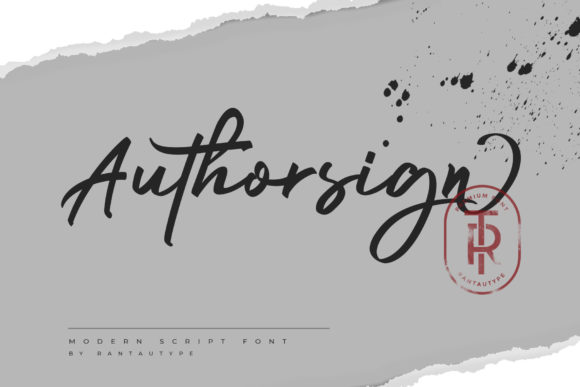
The Elegant Authorsign Font: A Designer’s Dream Come True
I’ll never forget the time I was working on a wedding invitation project, and my client asked for a font that would make their special day feel like a fairytale. I scoured the internet, tried countless fonts, but nothing seemed quite right. That was until I stumbled upon the Authorsign font. It’s been a game-changer ever since! 💕
A Stylish and Elegant Script Font
Authorsign is a stylish and incredibly elegant script font that can elevate any design project. Its beautiful, flowing lines and intricate details make it perfect for wedding invitations, thank you cards, quotes, greeting cards, logos, business cards, and more. This font is designed to add a touch of sophistication and whimsy to your designs.
What I Love About Authorsign ✨
- ✅ Stunningly elegant and sophisticated design
- ✅ Perfect for wedding invitations, greeting cards, and more
- ✅ Highly versatile and can be used for various design projects
Honest Review: A Few Quirks to Consider 🤔
While Authorsign is an amazing font, there are a few things to keep in mind:
- ⚠️ Some users may find the font a bit too ornate for certain projects
- ⚠️ May not be suitable for very small font sizes or body text
- Experiment with the font’s OpenType features, such as swashes and glyphs, to add a personal touch to your design
The Story Behind Authorsign
Authorsign was designed with the intention of creating a font that would add a touch of elegance and sophistication to any design project. The designer wanted to create a font that would be perfect for wedding invitations, greeting cards, and more, while still being versatile enough to use for a variety of other design projects.
Q: Is Authorsign suitable for body text?
A: While Authorsign is a beautiful font, it may not be the best choice for body text. It’s better suited for headings, titles, and other design elements where you want to make a statement.